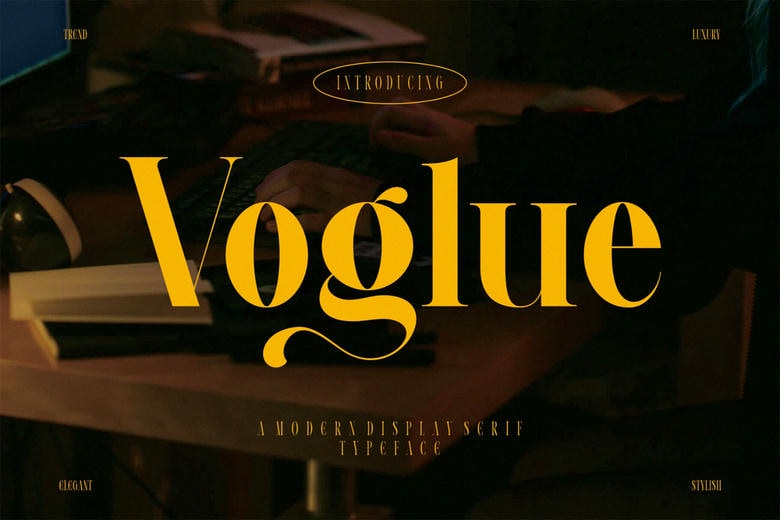
Voglue Font
Voglue is a serif modern font that of flowers’ freshness and the beauty of classical proOregon style. elegant and sensual with absolutely contemporary and daring enjoined curves, Milcora is a truly female typeface. Useful for luxury designs, including flowers and floral patterns, clothes, or any luxury brands, Milcora combines traditional serif fonts, oriental typefaces but in its new iteration.
Each letter looks deliberate, smooth, and delicate which gives the aesthetic value to any project to which it is applied. Introduce the spirit of the refined and natural elegance in your work with Voglue. Let this font lend your designs an air of sophistication and show your designography bloom vividly.
Voglue Serif Font